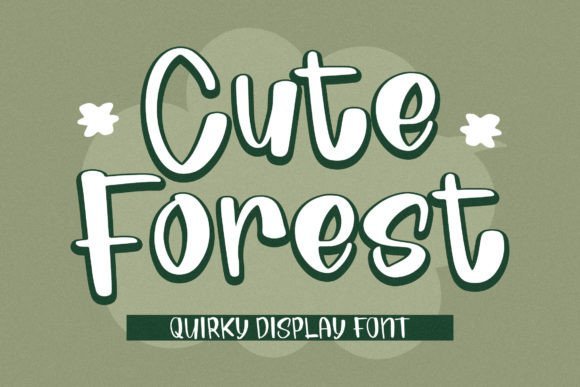
Adding Whimsy to Your Designs: The Power of Cute Forest Font
You know that moment when you’re brainstorming ideas for a new project and suddenly, a burst of creativity hits you? Maybe it’s a quirky character, an offbeat color palette, or a unique font that sparks your imagination. For designers, finding that perfect font can be a game-changer – and that’s where Cute Forest Font comes in.
This charming display font from Glorytype Studio is designed to add a touch of whimsy and playfulness to any project. With its bold, hand-drawn feel, Cute Forest Font is perfect for logos, branding projects, and even everyday items like mugs and t-shirts. Whether you’re a seasoned designer or just starting out, this font is a valuable addition to your toolkit, offering endless possibilities for creative expression.
Cute Forest Font Key Features
- Unique Characteristics: Whimsical, hand-drawn style with intricate details and natural elements
Cute Forest Font Review
I’ve worked with my fair share of fonts, and I must say, “Cute Forest Font” has its charm. Here’s what I like and dislike about it.
- Unique Whimsy: This font has a distinct, childlike quality to it that makes it perfect for projects that require a touch of playfulness.
- Variety of Styles: The font comes with multiple styles, including bold, italic, and script, which gives you a lot of creative freedom.
- Readability: Despite its playful nature, the font is surprisingly easy to read, making it suitable for body text as well as headings.
- Limited Scalability: While the font looks great at smaller sizes, it can become pixelated and distorted at larger sizes.
- Lack of Serif Options: If you’re looking for a serif font with a similar feel, you might be disappointed to find that this font doesn’t offer that option.
- Overly Cutesy: While the font’s playfulness can be a strength, it can also be a weakness if you’re looking for a more sophisticated or professional look.
Cute Forest Font is a solid choice for projects that require a lighthearted, whimsical touch. While it has its limitations, the font’s unique qualities and versatility make it a valuable addition to any designer’s toolkit.
For best results, use the Cute Forest Font for headings and titles, and pair it with a clean sans-serif font for body text.
For best results, use the Cute Forest Font for illustrations, graphics, and text overlays.
For best results, use the Cute Forest Font for headings, titles, and text overlays.
The Cute Forest Font is ideal for:
1. Children’s books and educational materials.
2. Stationery and greeting cards.
3. Branding and marketing materials.
4. Illustrations and graphics.